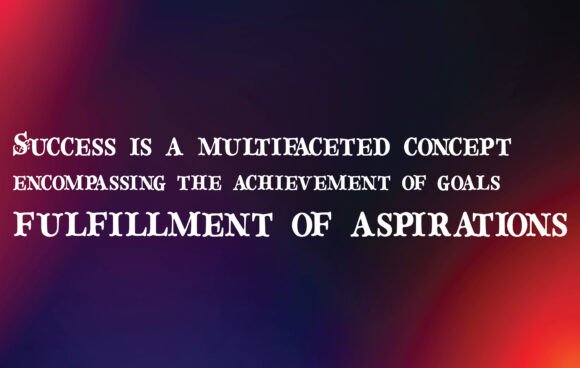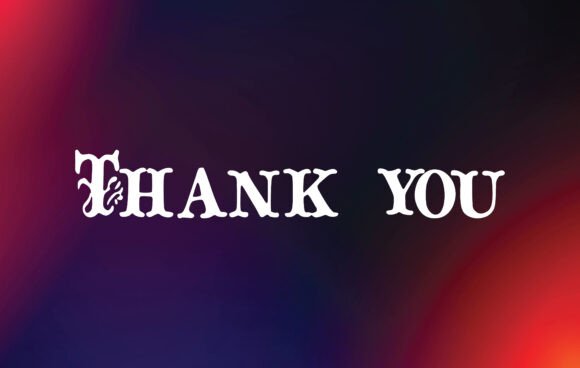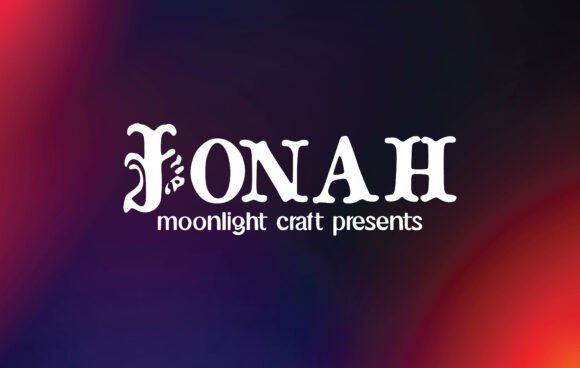
Introduction to Jonah Font
Jonah is a lovely and beautiful font.
Key Features of Jonah Font
Why Choose Jonah Font?
Jonah Font offers exceptional quality and versatility, making it a valuable addition to your design toolkit. Whether you’re creating for personal projects or commercial use, Jonah Font delivers professional results.